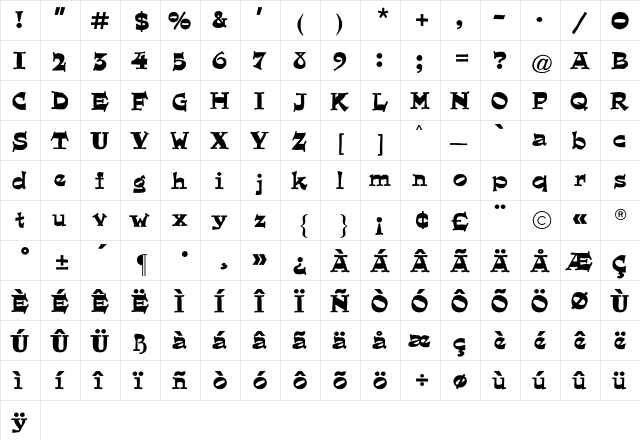
Quaint Roman CG Regular
| Foundry | Miles Inc |
Design Context for Quaint Roman CG Typeface
Quaint Roman CG is a composed and adaptable typeface that performs quietly and consistently across a wide range of design contexts.